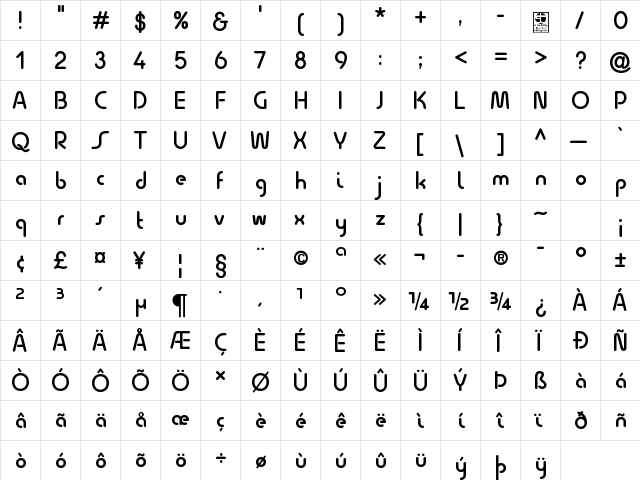
Quesat Demi Bold Demo Regular
| Foundry | StudioTypo |
| Designer | Mehmet Abac |
Design Context for Quesat Demi Bold Demo Typeface
Quesat Demi Bold Demo offers clean, dependable letterforms without strong stylistic allegiance, making it a practical choice for designers who need flexibility. The heavy weight commands attention and anchors typographic hierarchies.